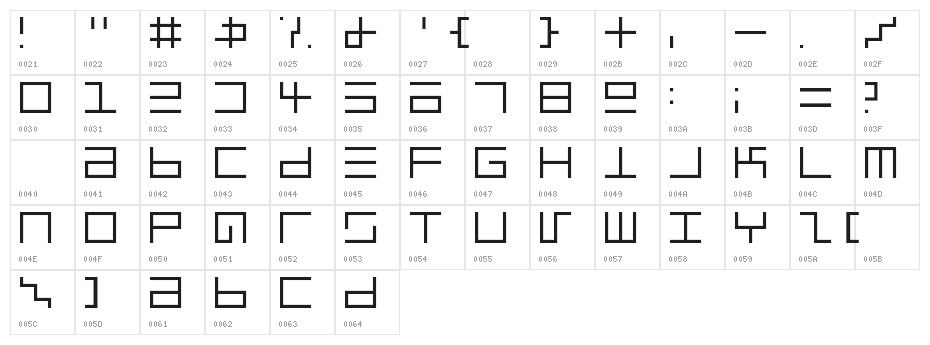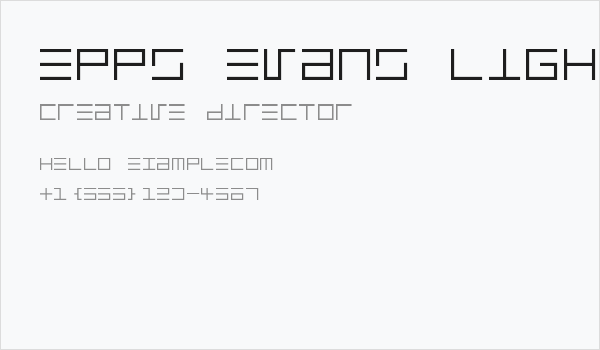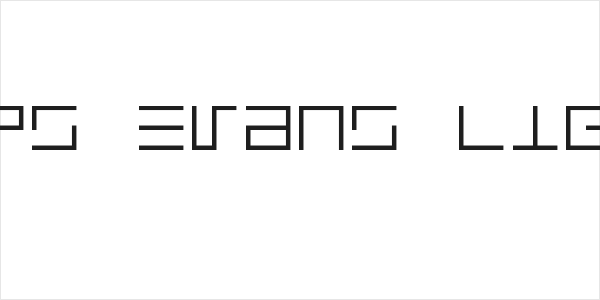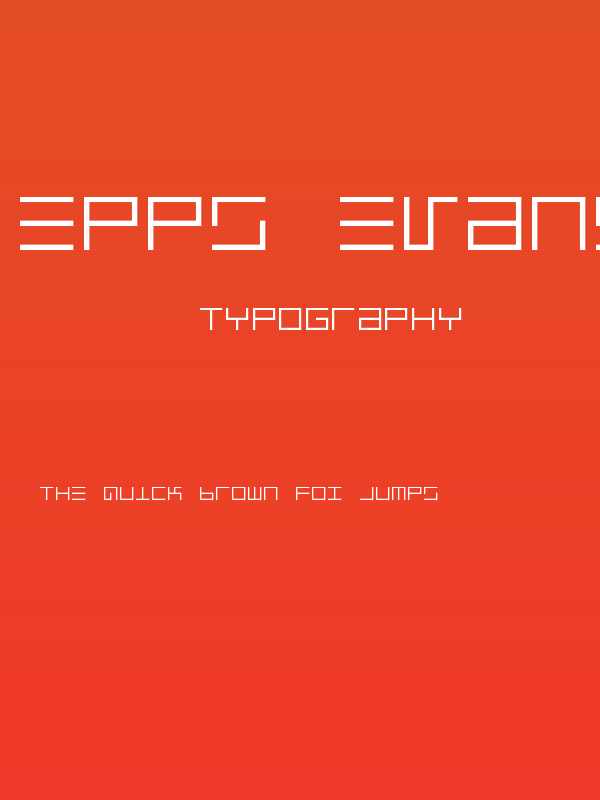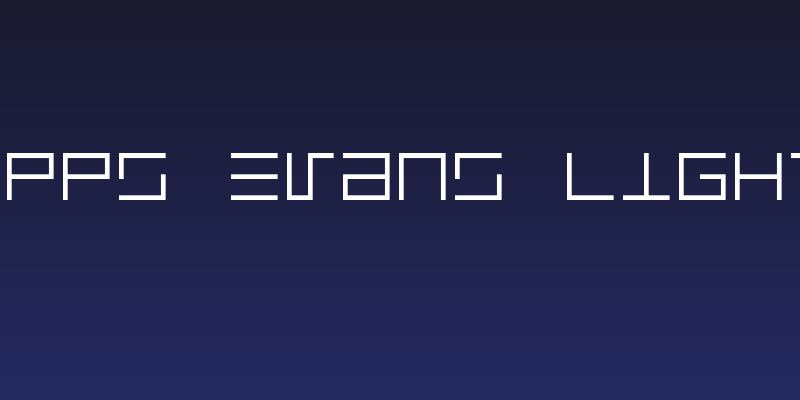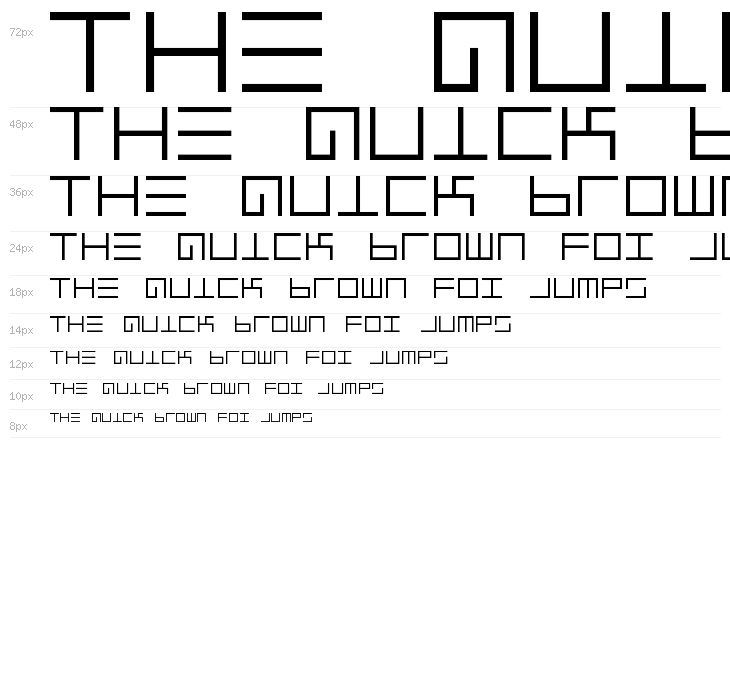
Epps Evans Light Font
Epps Evans Light Description
This font features a geometric and modern design with a distinct digital or futuristic aesthetic. The characters are constructed with straight lines and right angles, giving them a boxy, grid-like appearance. The uppercase and lowercase letters maintain a consistent height, contributing to a uniform look. The numerals and special characters follow the same structural design, ensuring cohesion across all glyphs. The overall style is minimalistic, with a focus on clarity and simplicity, making it suitable for digital interfaces or tech-themed projects.
| Use Case | Logos, Headlines, Digital interfaces |
| Proposed Projects | Ideal for tech branding, digital interfaces, video game design, and futuristic-themed posters. |